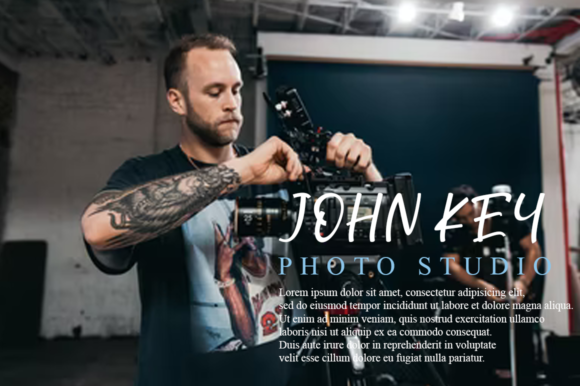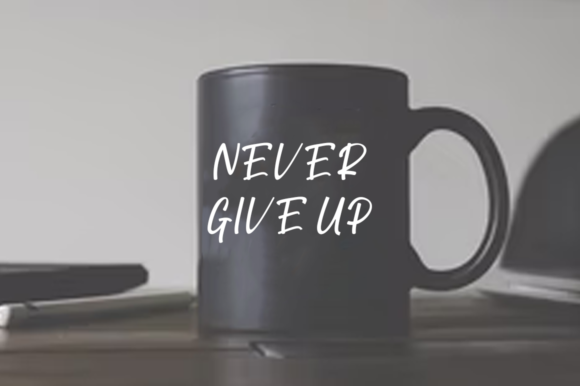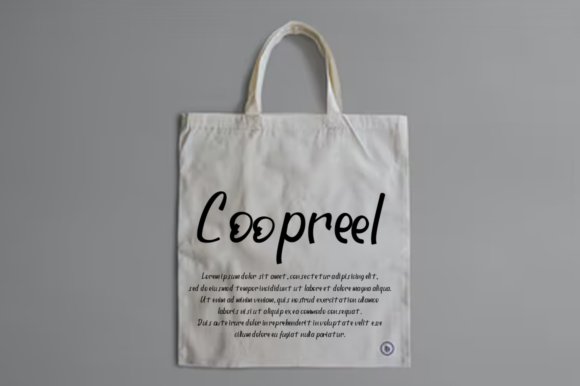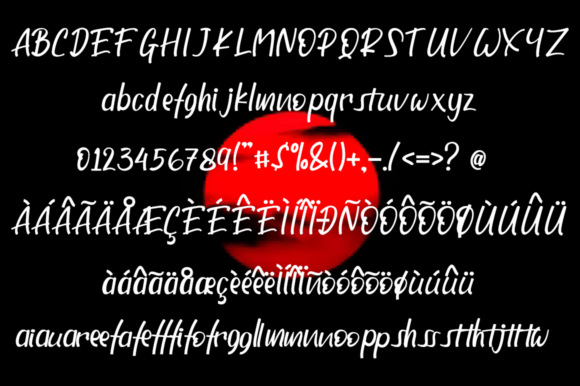
Introduction to Jolotundo Font
Jolotundo is a cute handwritten display font.
If you need a touch of casual modern display for your designs, this font is perfect for you You can add this font to bags, mugs, photography projects, fashion, magazines, clothing, and more.
Jolotundo Font offers exceptional quality and versatility, making it a valuable addition to your design toolkit. Whether you’re creating for personal projects or commercial use, Jolotundo Font delivers professional results.